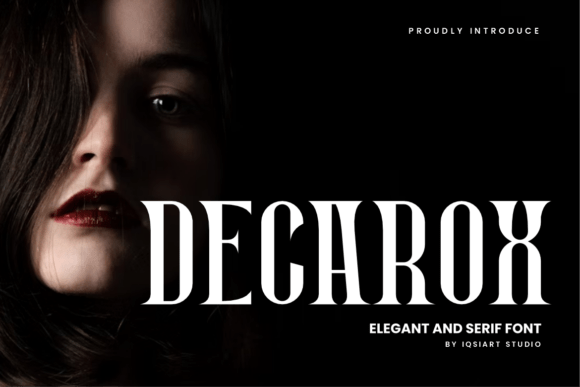
Introducing Decarox Font: The Epitome of Elegance and Dramatic Flair
In the realm of typography, few fonts manage to strike a balance between elegance and drama. Decarox Font is one such exceptional typeface that seamlessly blends sophistication with bold presence, making it a standout choice for premium branding, editorial layouts, and fashion-forward visuals.
The Design Philosophy Behind Decarox
Decarox is a high-contrast serif font characterized by its sharp vertical strokes and sculptural letterforms. This design approach gives Decarox a distinctive look that commands attention while exuding refinement. The high contrast between the thick and thin strokes adds a layer of elegance, making it perfect for applications where a luxurious feel is desired.
Key Features of Decarox Font
- High-Contrast Serif Design: The sharp contrast between the strokes gives Decarox its elegant and dramatic appearance.
- Sculptural Letterforms: Each letter is designed with a sculptural quality, adding to the font’s luxurious aesthetic.
- Refined Curves and Stylized Cuts: The refined curves and stylized cuts enhance the font’s contemporary appeal, making it suitable for modern design projects.
- Luxurious yet Contemporary: Decarox strikes a perfect balance between luxury and modernity, making it versatile for various design applications.
Applications of Decarox Font
Decarox’s unique design makes it an excellent choice for a variety of applications:
- Premium Branding: Use Decarox to create a sophisticated and luxurious brand identity that stands out.
- Editorial Layouts: Add a touch of elegance to your editorial designs, such as magazines, newspapers, and digital publications.
- Fashion-Forward Visuals: Decarox is perfect for fashion brands looking to convey a sense of style and sophistication.
- Headlines and Logos: The font’s dramatic flair makes it ideal for headlines and logos that need to capture attention.
- Upscale Design Compositions: Incorporate Decarox into your design compositions to add a luxurious and contemporary touch.
Why Choose Decarox Font?
Choosing Decarox for your typography needs comes with several advantages:
- Unique Aesthetic: Decarox offers a distinctive look that can set your designs apart from the rest.
- Versatility: The font’s design makes it suitable for a wide range of applications, from digital to print.
- Elegance and Drama: Decarox combines elegance with dramatic flair, making it perfect for designs that need to make a statement.
- High Readability: Despite its decorative nature, Decarox maintains high readability, making it functional as well as beautiful.
Using Decarox in Digital and Print Media
Decarox’s versatility extends to both digital and print media, making it a valuable asset for designers working across different platforms:
- Digital Applications: Use Decarox in website headers, digital advertising, and social media graphics to add a touch of sophistication.
- Print Applications: Decarox shines in print media, including magazines, brochures, posters, and business cards, where its high-contrast design can be fully appreciated.
Tips for Maximizing Decarox’s Impact
To get the most out of Decarox, consider the following tips:
- Pair with Complementary Fonts: When using Decarox alongside other fonts, choose typefaces that complement its elegant and dramatic style.
- Adjust Contrast: Experiment with the contrast settings to adapt Decarox to different design contexts and ensure it meets your project’s needs.
- Consider Size and Weight: Use Decarox in various sizes and weights to create visual hierarchy and emphasize key elements in your design.
Decarox Font is a powerful tool for designers looking to infuse their projects with elegance, drama, and a touch of luxury. Its high-contrast serif design, sculptural letterforms, and refined curves make it an excellent choice for premium branding, editorial layouts, fashion-forward visuals, and upscale design compositions. By incorporating Decarox into your typography arsenal, you can create stunning designs that capture attention and convey sophistication.